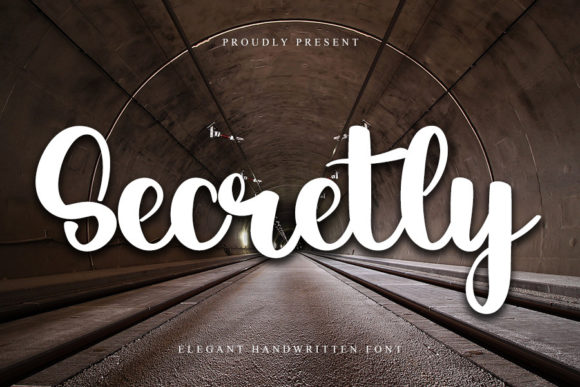
Unleash the magic of love and romance with Secretly, our enchanting script font family. Its captivating curves and impeccable form evoke the timeless elegance of handwritten letters. Each character is crafted with precision, exuding a touch of sophistication and charm.
Secretly is not just a font; it's an invitation to express your heartfelt emotions. Whether you're crafting love letters, designing wedding invitations, or creating personalized keepsakes, our font will elevate your creations to a level of undeniable beauty. Its versatility extends to branding, packaging, and even social media posts, adding an air of romance and allure to every touchpoint.
Indulge in the allure of Secretly and let its flowing lines guide you as you pen down your most cherished thoughts and aspirations. Its enchanting beauty will captivate your audience, leaving an unforgettable mark on their hearts. Embrace the power of love and let Secretly be your muse, transforming your words into timeless expressions of affection.